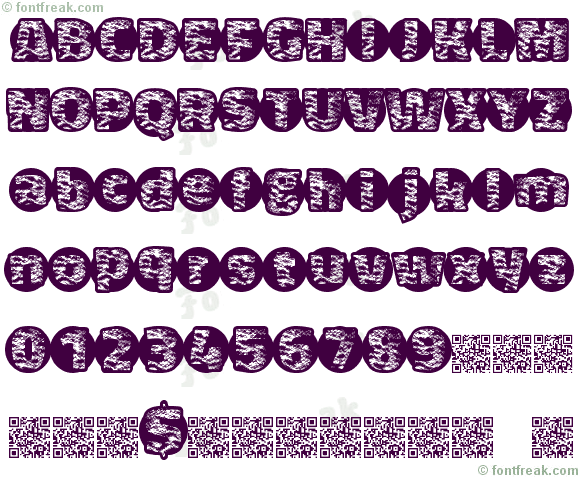
TigerBawl
About TigerBawl
TigerBawl by XEROGRAPHER FONTS is a distinctive display font that stands out with its playful and bold design. Released in 2013, this font features a unique visual style characterized by its irregular shapes and textured appearances that resemble the stripes of a tiger. The stroke weight varies throughout the characters, giving it an organic feel that enhances its decorative elements. The spacing between letters is designed to maintain readability while allowing the font's playful character to shine.
This font is ideal for a variety of creative projects. Its energetic style makes it an excellent choice for children's book covers, where it can attract young readers with its fun look. Likewise, it is well-suited for movie posters, especially in genres like adventure or comedy, where a bold statement is necessary. Restaurant menus can also benefit from the TigerBawl font, adding a whimsical touch that enhances the dining experience. Additionally, it works well in promotional materials for events such as parties or festivals, where a lively aesthetic is desired.
Targeting graphic designers, small business owners, and content creators, TigerBawl appeals to those looking for a font that can infuse personality into their projects. The versatility of this font allows it to cater to various audiences, making it a valuable addition to any designer's toolkit.
What sets the TigerBawl font apart is its ability to evoke a sense of fun and excitement while remaining highly legible. Its unique visual characteristics make it memorable, ensuring that any text set in this font will capture attention and leave a lasting impression. For those interested in adding this creative touch to their designs, the TigerBawl font free download offers an accessible way to incorporate this playful style into their work.